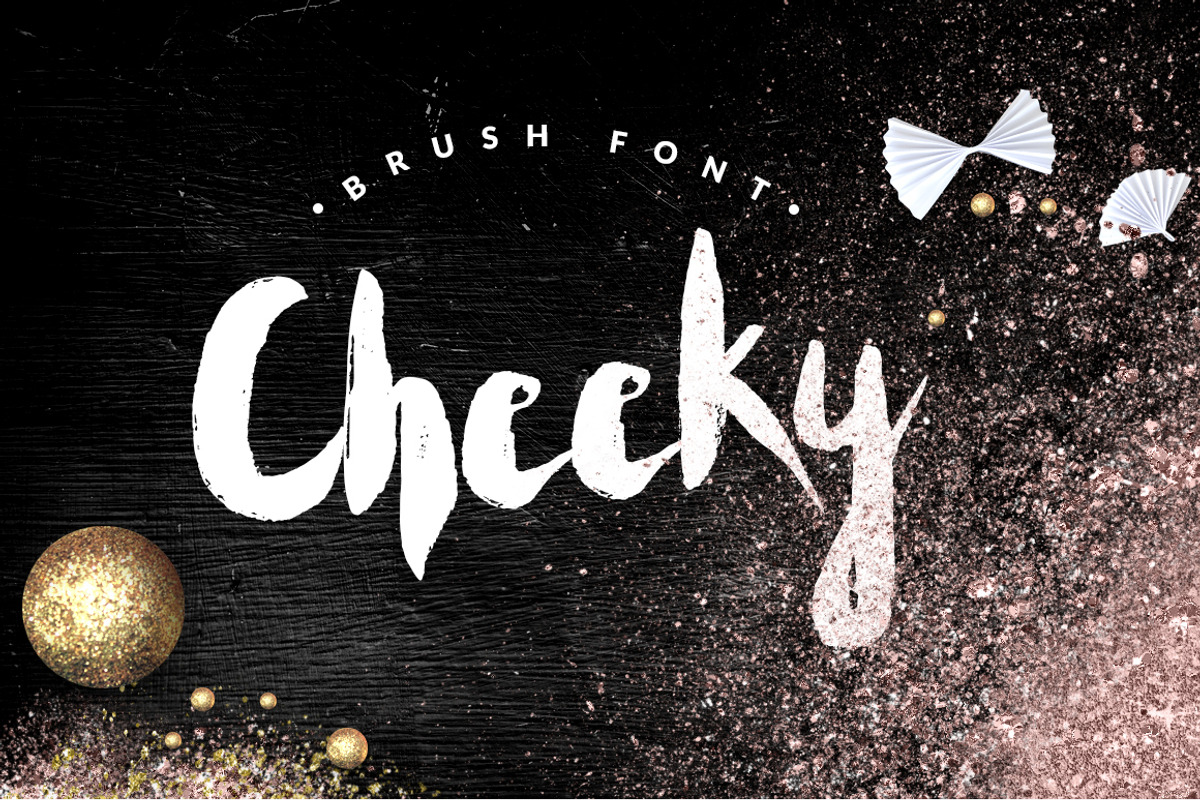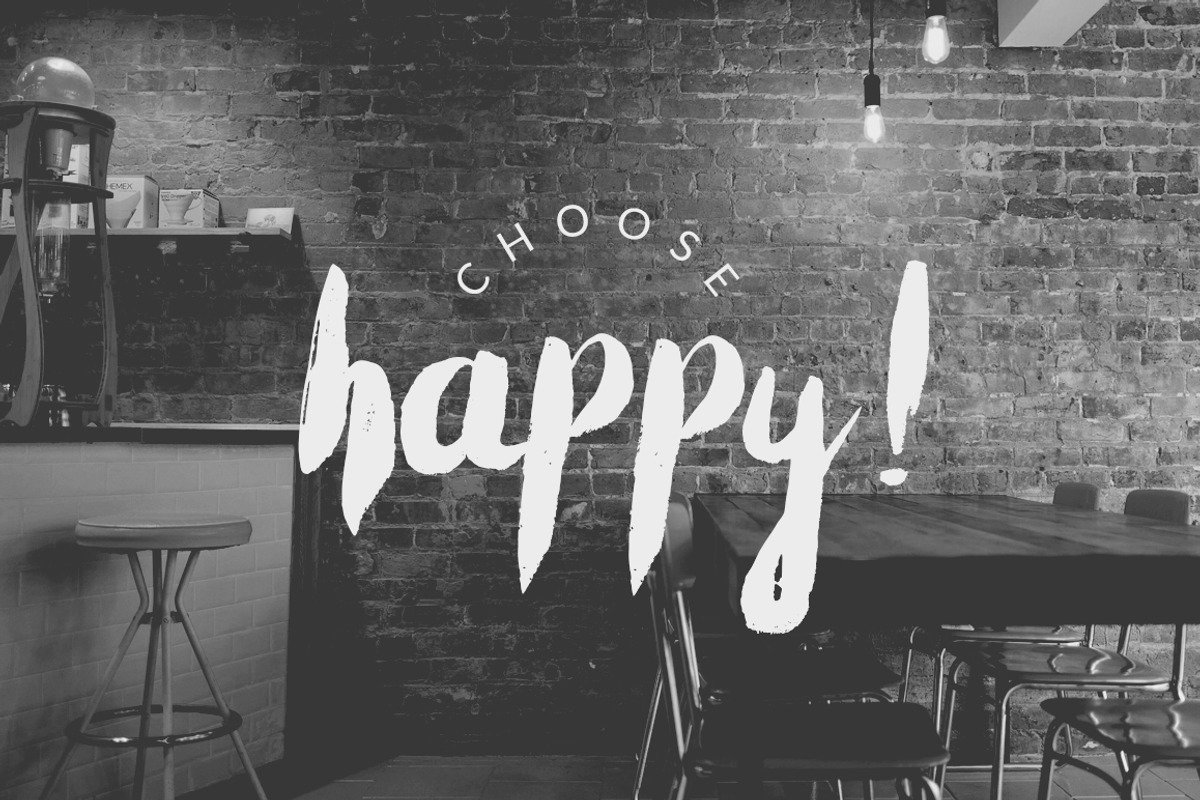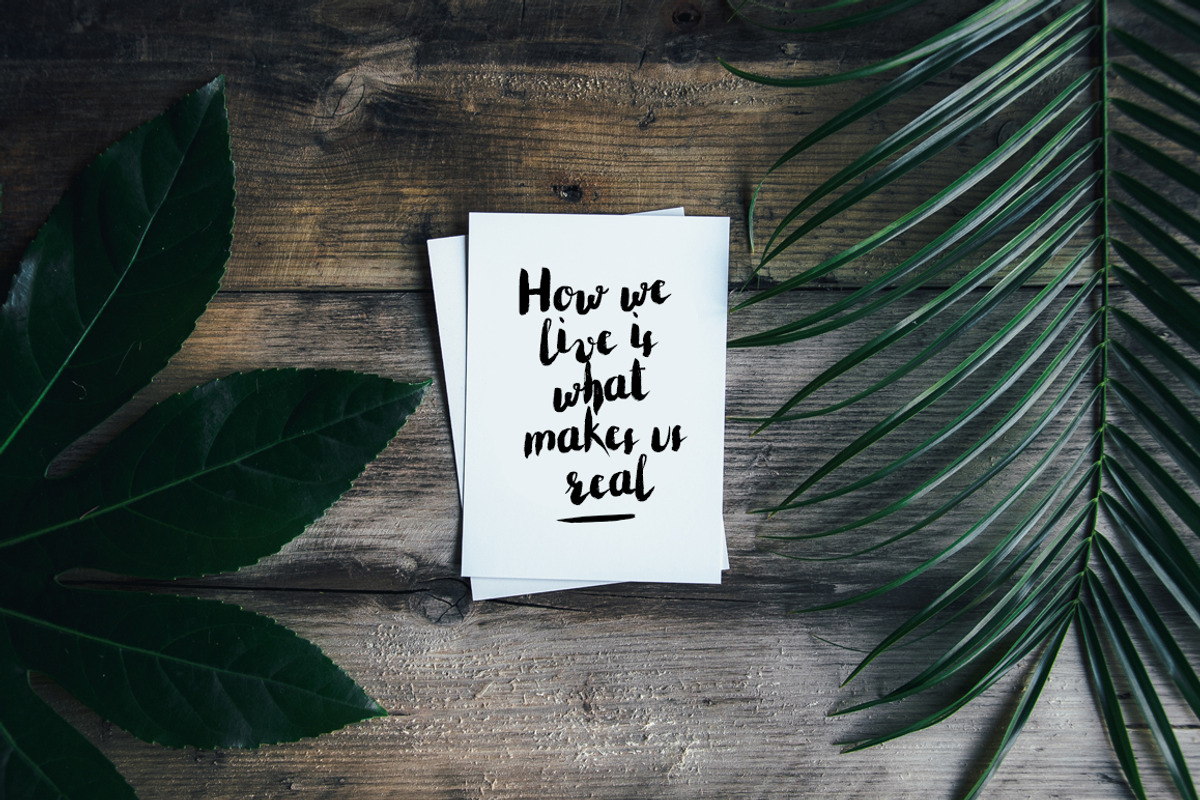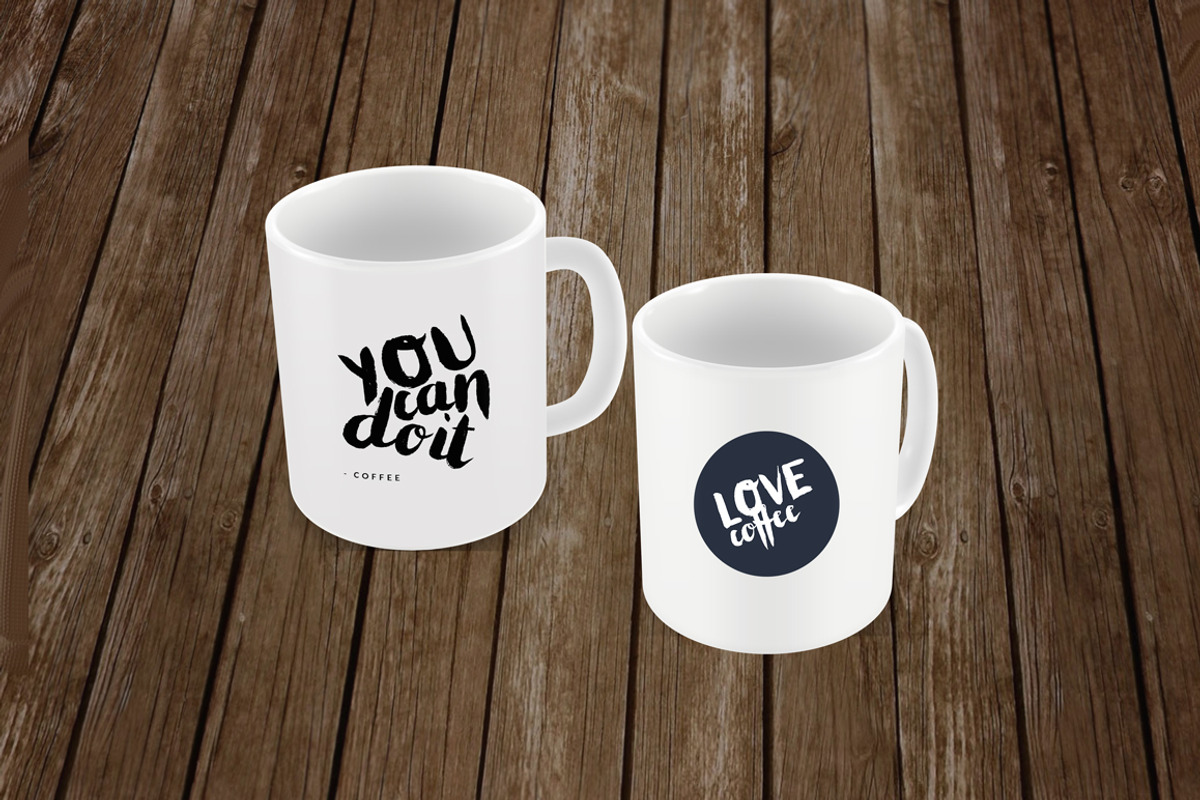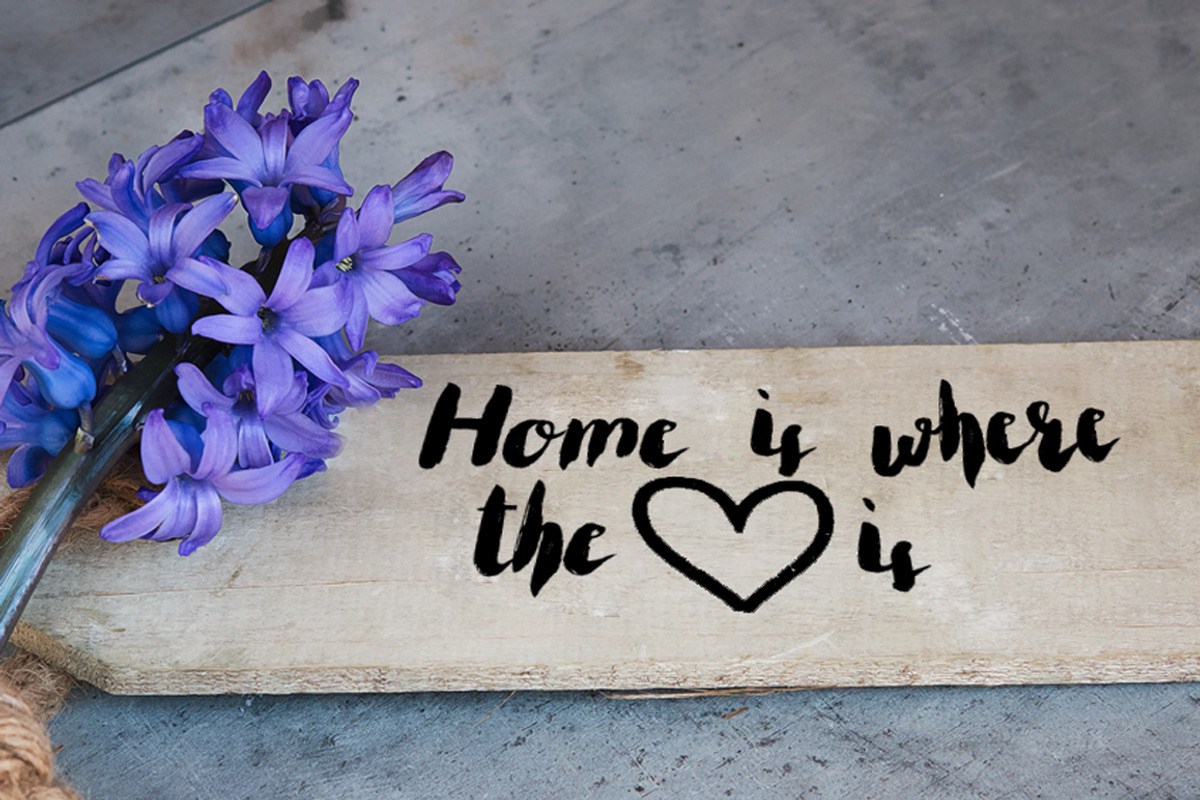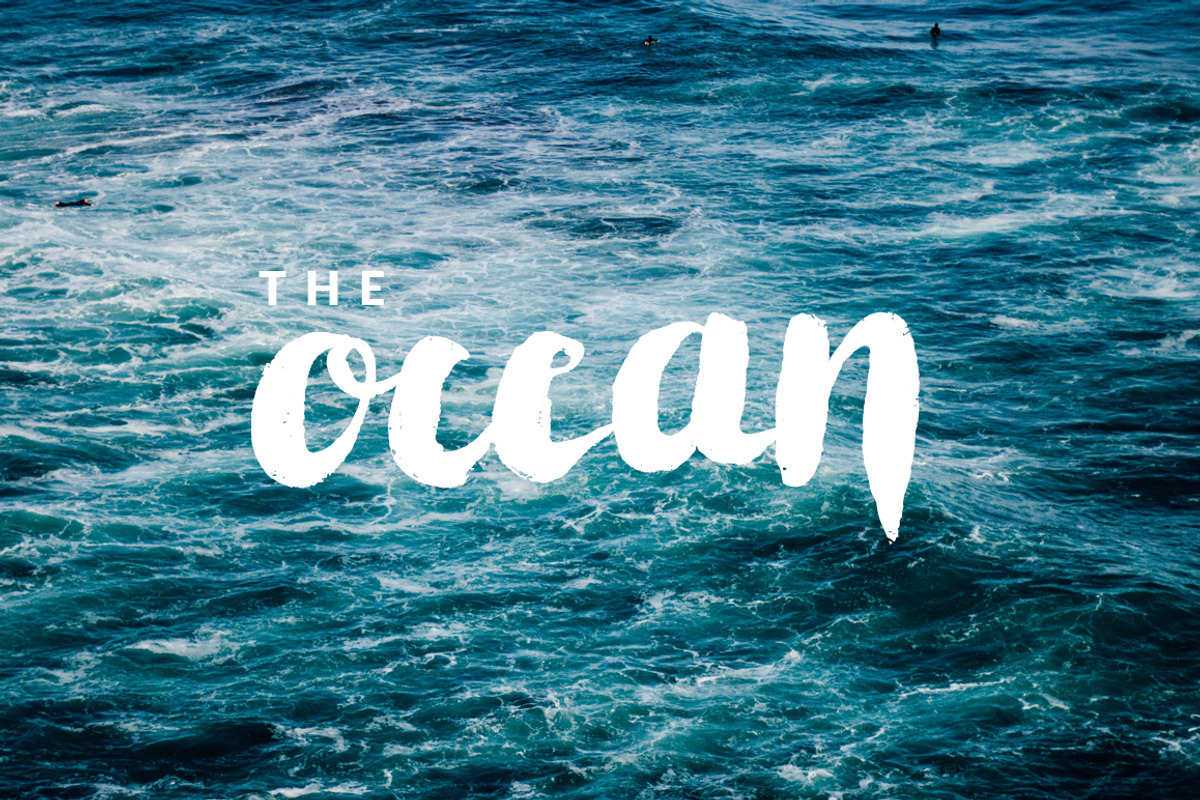
Cheeky--handwritten brush font+BONUS
Introducing "Cheeky" - a hand-painted, brush typeface with a gritty, rough finish. This font will add some personality and playfulness to your work. That’s a good match for any artwork you are going to make. Pair it with various minimal fonts. Perfect for print and web projects (blogs, invitations, flyers, posters, quotes in social media, brochures, packaging, business cards, etc.), logos.